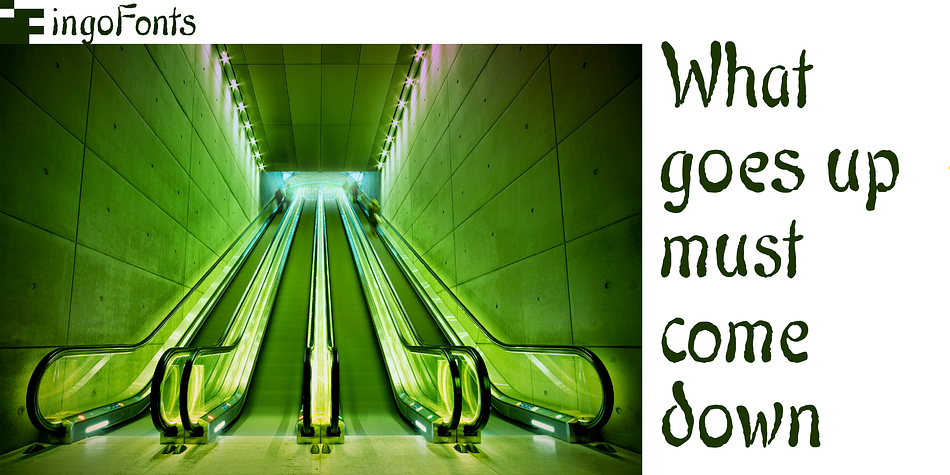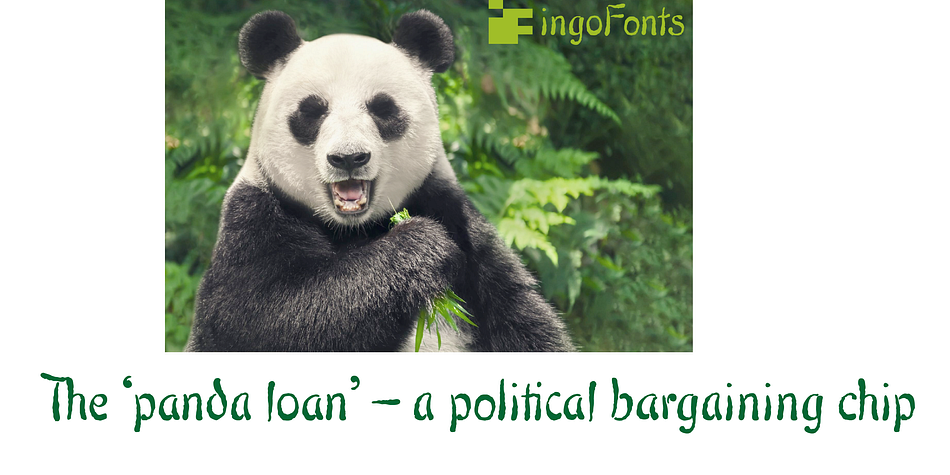
Facade Pro
Designed by Ingo Zimmerman, Facade Pro is a novelty font published by ingoFonts.
Handwritten decorative font with brush characteristics
An attractive decorative script found in a pamphlet of script samples from around 1900 which was issued by Otto Maier publishing house in Ravensburg. The forms and flow of Façade Pro are obviously influenced by Art Nouveau.
A typeface can first reveal a true “handmade” character when the letter forms do not continually repeat themselves - a completely normal occurrence with handwriting. Thanks to OpenType-Technology, some key letters of Façade Pro appear in various alternative forms depending on the combination of letters.